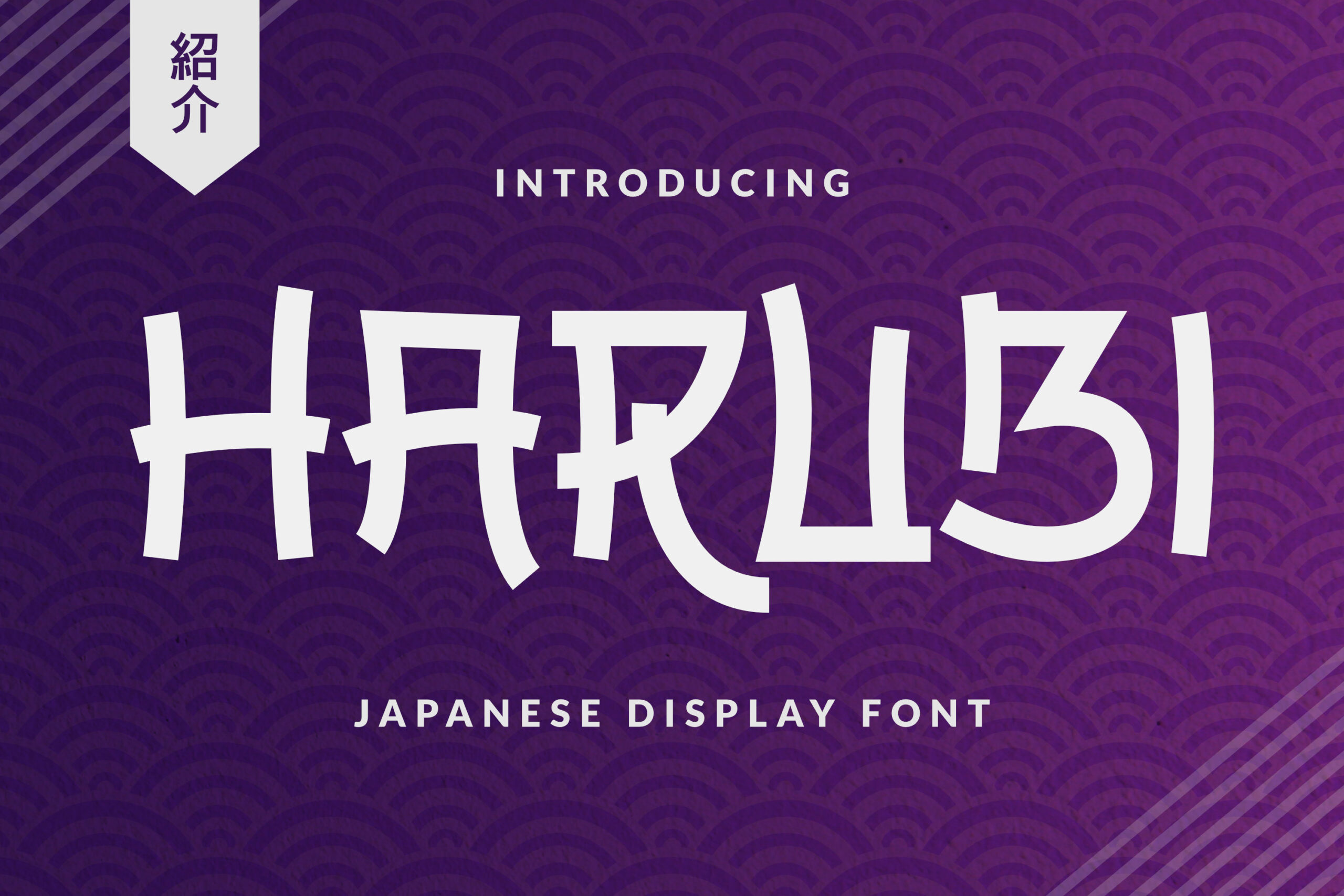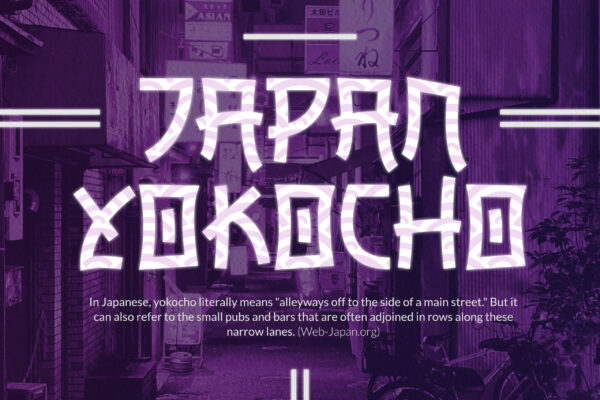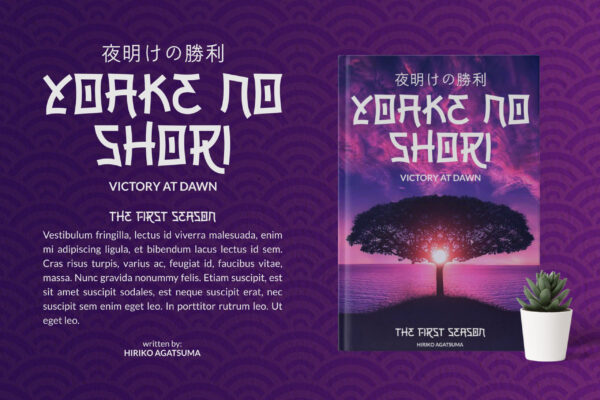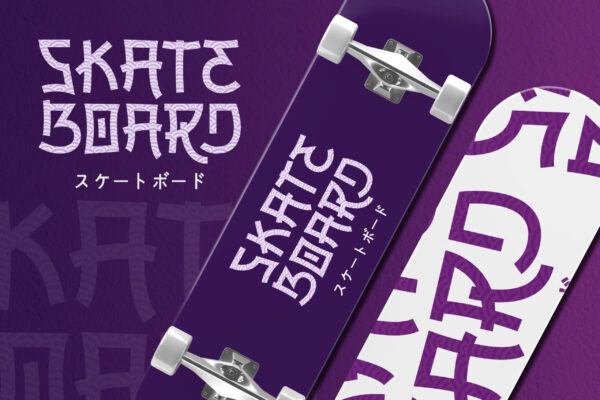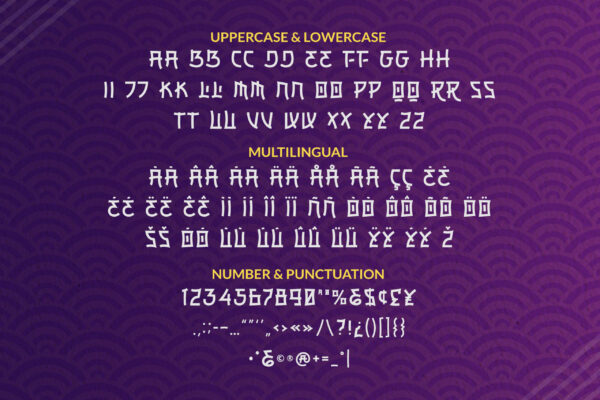
Harubi is a bold and stylized Japanese-themed display font that draws inspiration from traditional brush strokes and katakana-like structure. With its angular shapes, sharp terminals, and cultural essence, Harubi delivers a strong sense of identity and movement. This font is perfect for projects that want to evoke Japanese aesthetics—be it for posters, game titles, food packaging, or manga-inspired branding.
Complete with uppercase, lowercase, numerals, punctuation, and multilingual support, Harubi blends ancient visual language with modern flair. Whether you’re designing for Japanese restaurants, urban streetwear, or anime event graphics, this font brings authenticity and edge to your typography.
HARUBI